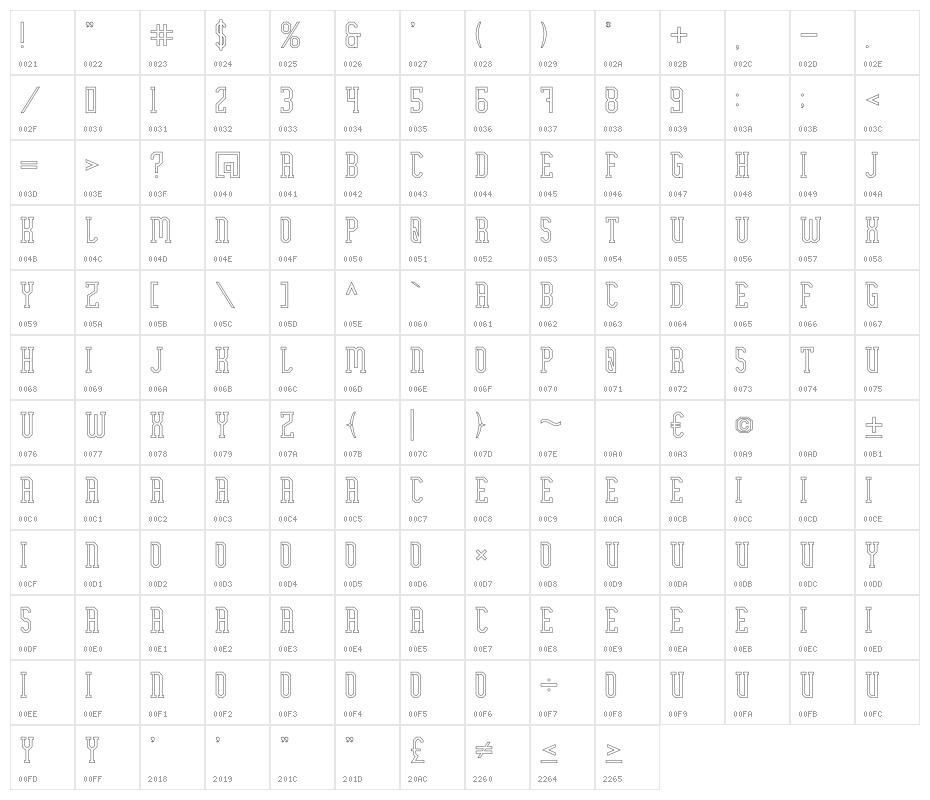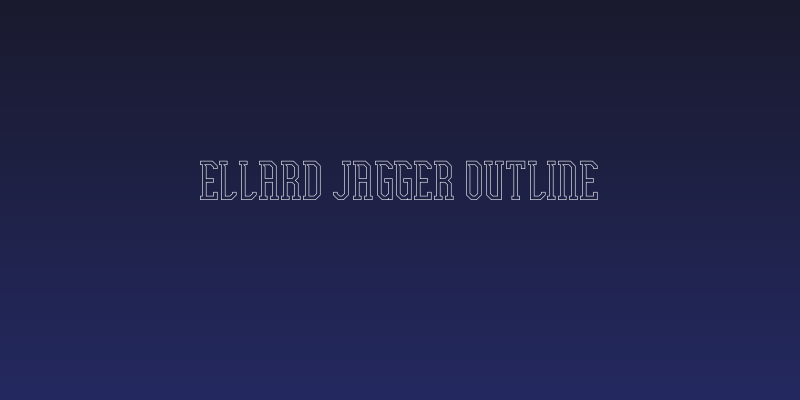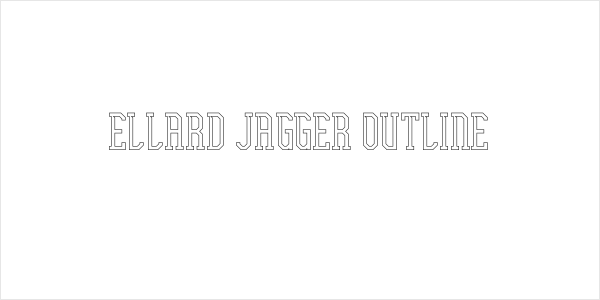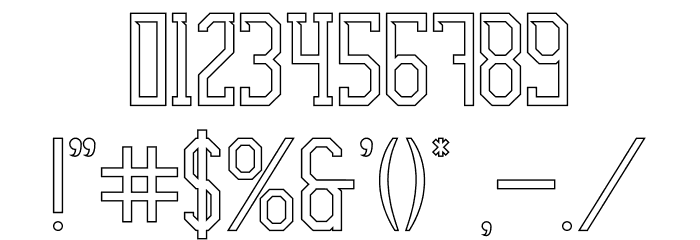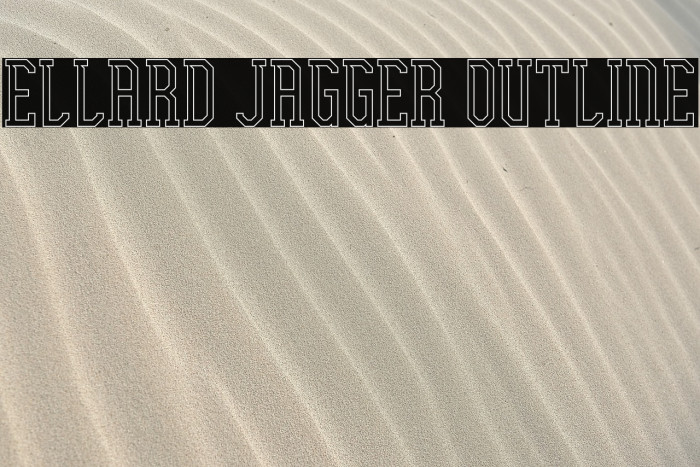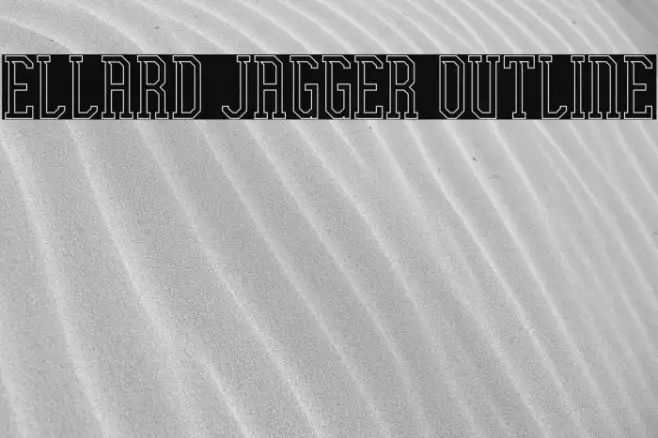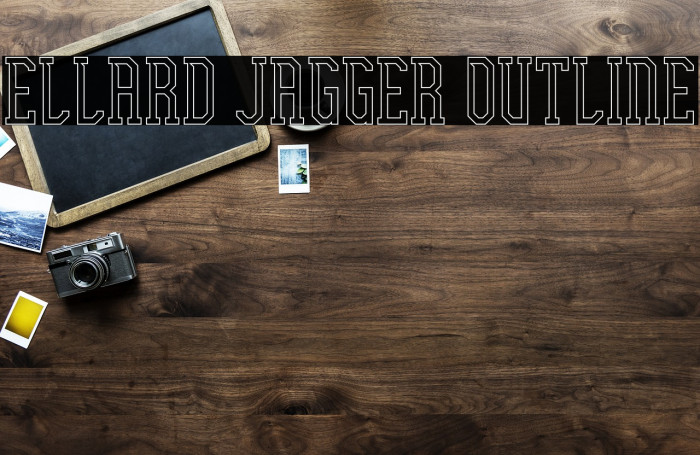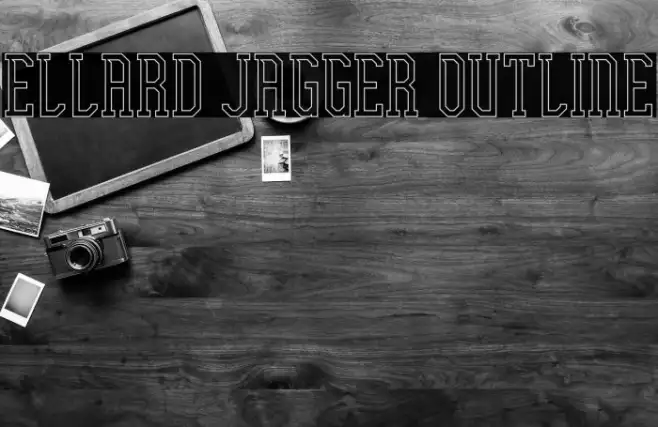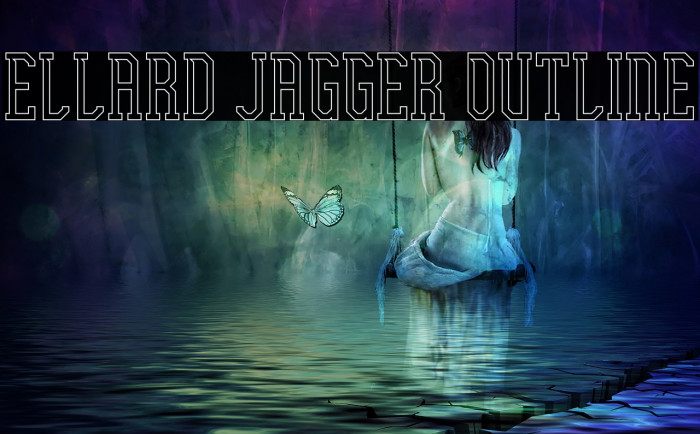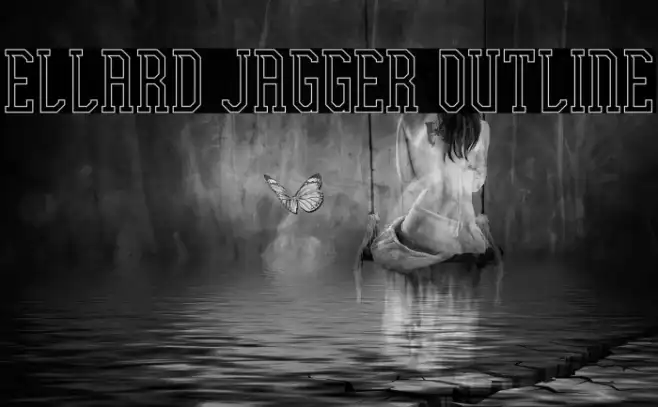
Ellard Jagger Outline Font
Ellard Jagger Outline Description
This font features a bold, outlined style with a geometric and structured appearance. The uppercase letters are uniform in height, with sharp angles and clean lines that give a modern and industrial feel. The lowercase letters maintain the same outline style, ensuring consistency across the typeface. Numbers are equally bold and structured, matching the style of the alphabet. Special characters are designed to complement the overall aesthetic, with a focus on clarity and readability. The font's outline nature makes it stand out, ideal for designs that require a strong visual impact.